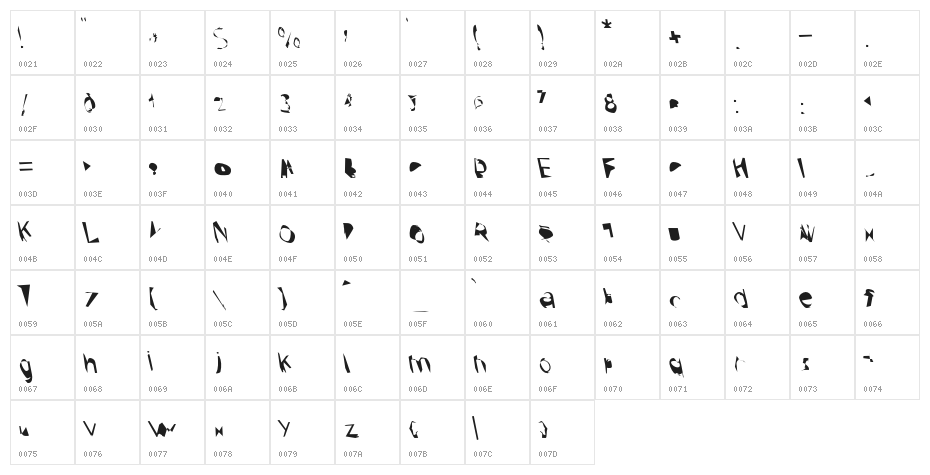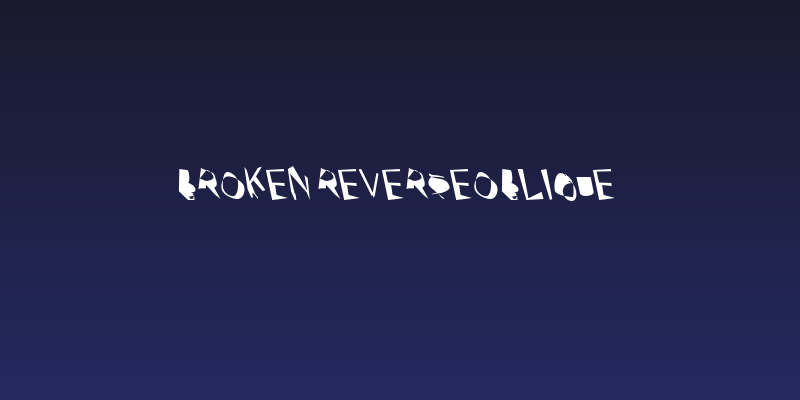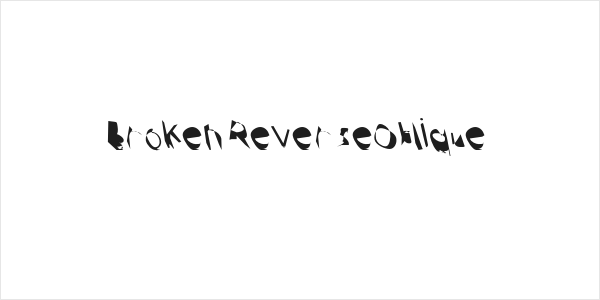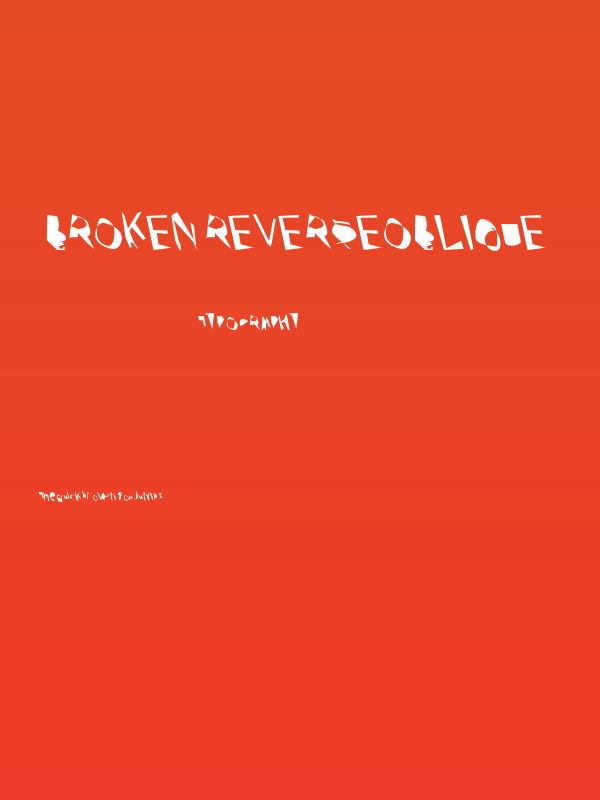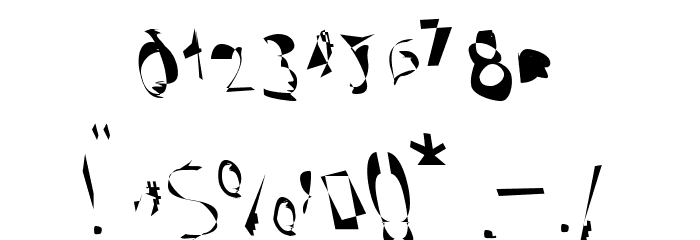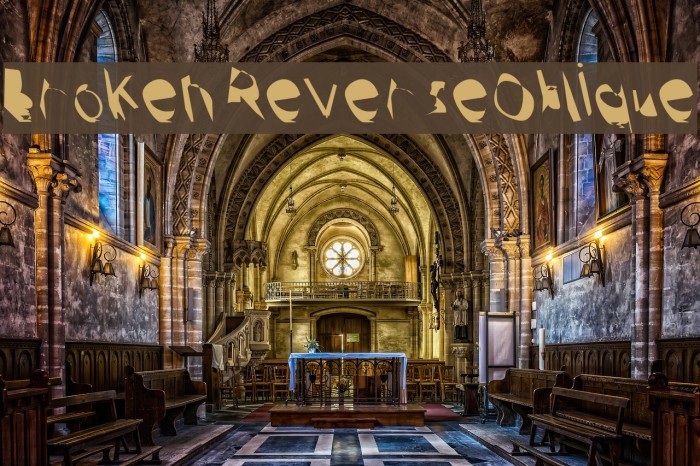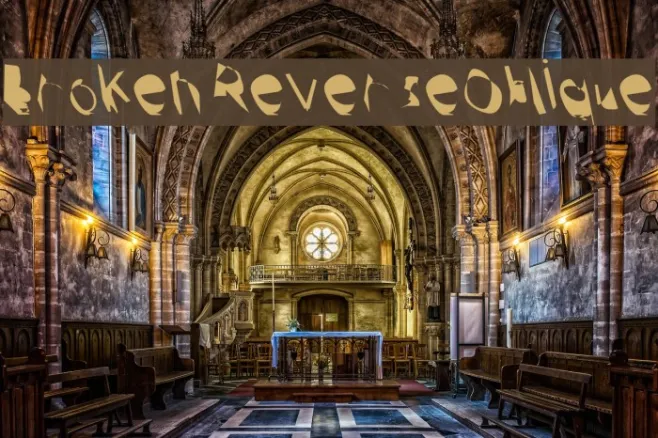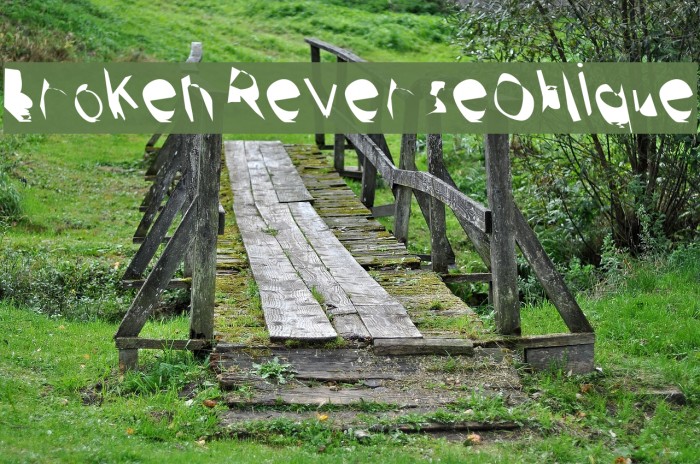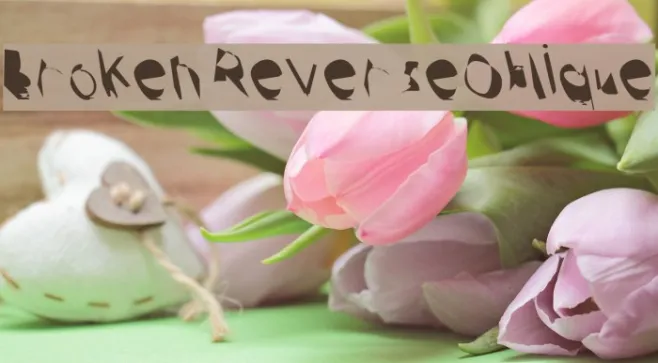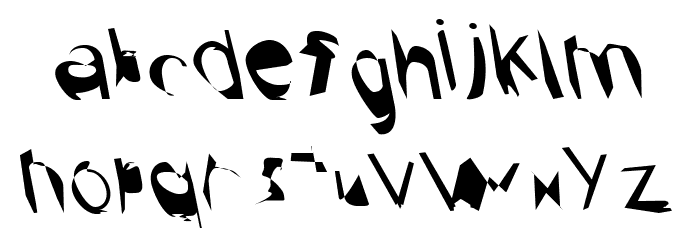
Broken ReverseOblique Font
Broken ReverseOblique Description
This font features a highly abstract and fragmented design, with each character appearing as if it has been shattered and reassembled in a dynamic, angular form. The letters are bold and irregular, with sharp edges and varying stroke widths that create a sense of movement and chaos. The uppercase and lowercase letters maintain a consistent style, though each character is uniquely distorted, giving the font a distinct and unconventional appearance. The numbers and special characters follow the same fragmented aesthetic, ensuring a cohesive look across all elements. This font's unique style makes it stand out, offering a modern and edgy vibe.
| Overall Style | Modern, Abstract |
| Use Case | Logos, Posters, Artistic projects |
| Proposed Projects | Ideal for edgy branding, album covers, modern art posters, and experimental design projects. |